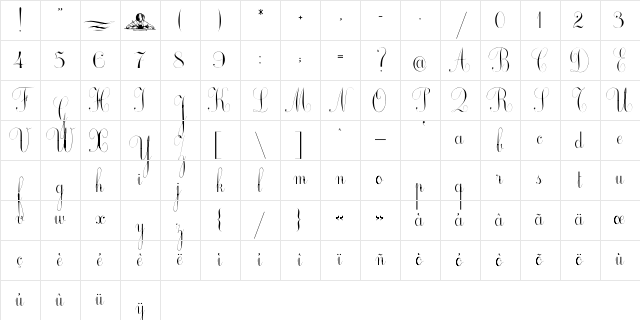
Ecole Anglaise Texte Regular Free Font
Ecole Anglaise Texte Regular
Designer: Big Jack FEYS
Design Context for Ecole Anglaise Texte
Ecole Anglaise Texte is a composed and adaptable typeface that performs quietly and consistently across a wide range of design contexts.